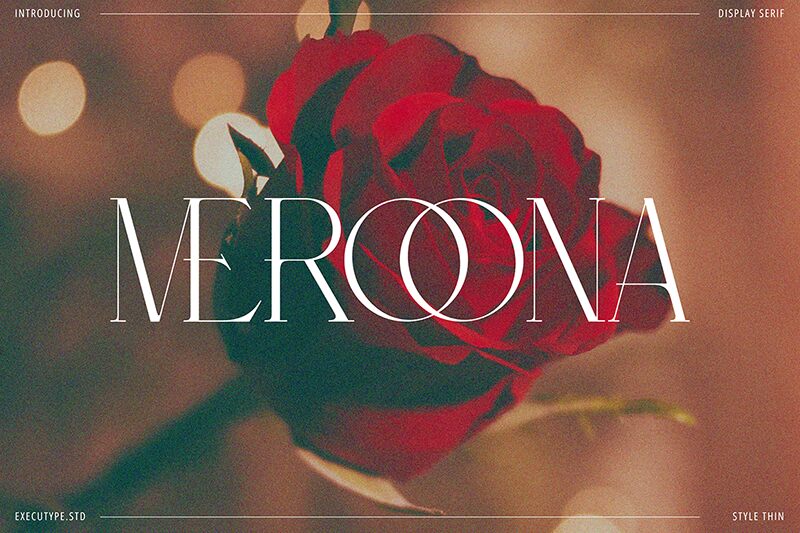
Meroona Display Serif font by Feri Feriyal is a light serif font that presents an elegant and sophisticated look. Its refined charm serves users looking to achieve a professional modern style through digital typography. The typeface holds curved corners and smooth text line directions which further emphasize its chic nature.
The free serif font creates stunning texts for advertising, branding, logos, slides, magazines, headings, journals, notebooks, social media visuals, blogs/articles (online typing).